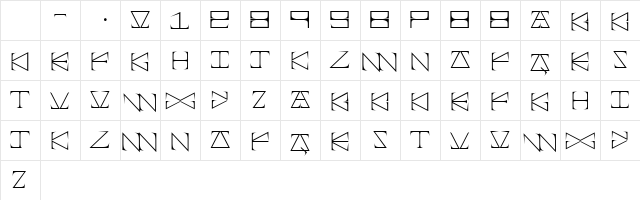
Okkur_prova Regular
| Foundry | brando corradini |
| Designer | Brando Corradini |
Design Context for Okkur_prova Typeface
Okkur_prova is a composed and adaptable typeface that performs quietly and consistently across a wide range of design contexts.